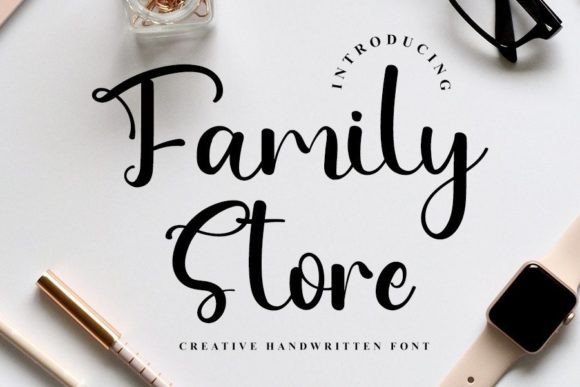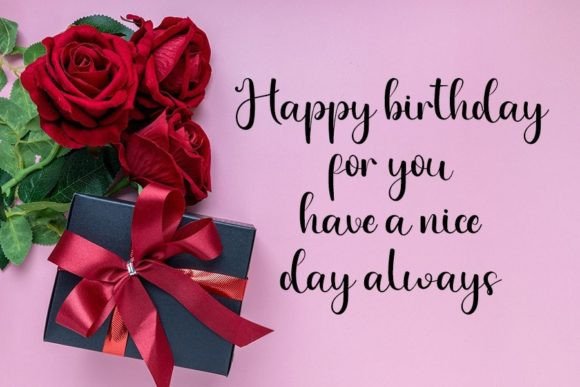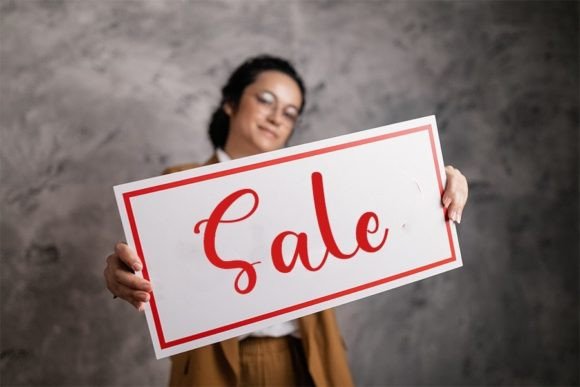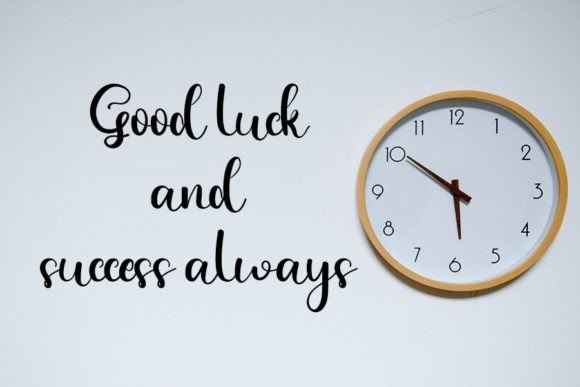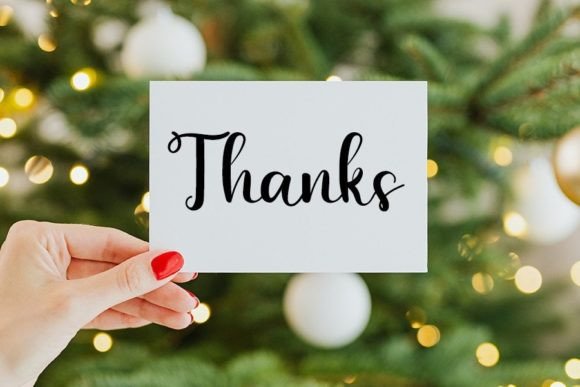
Family Store Font
About Family Store Font
“Family Store” is a font that embodies neatness and beauty with an elegant touch, making it an exceptional choice for a wide range of creative projects. Its distinct and timeless style sets it apart, capturing attention and adding a touch of sophistication to your designs. Whether you’re working on branding, invitations, stationery, or any other project, “Family Store” has the versatility to elevate your creations to new heights.
The neat and beautiful handwritten style of “Family Store” is perfect for creating a sense of warmth and personal connection in your designs. Its elegant touch adds a refined and polished look, making it suitable for various contexts where a sophisticated aesthetic is desired. Whether you’re designing for a family-owned business, a special event, or personal projects, this font enhances the visual appeal and creates a lasting impression.
In branding, “Family Store” brings a sense of authenticity and charm. Its neat and elegant characters make it ideal for businesses looking to convey a friendly and approachable image. Whether used in logos, business cards, or promotional materials, this font adds a touch of professionalism while maintaining a personal and inviting atmosphere. It creates a connection with customers, making the brand memorable and relatable.
For invitations and stationery, “Family Store” adds a touch of elegance and timelessness. Whether you’re designing wedding invitations, greeting cards, or letterheads, this font imparts a sense of sophistication and class. Its beautiful handwritten style creates a personalized and heartfelt tone, making invitations and stationery items more meaningful and special for recipients.
In digital media and social media posts, “Family Store” stands out with its distinct and elegant appearance. Whether used for quotes, announcements, or promotional graphics, this font adds a touch of sophistication to your social media presence. Its neat and beautiful handwritten design creates visually appealing content, ensuring that your messages resonate with your audience and leave a lasting impression.
Overall, “Family Store” is more than just a font; it’s an embodiment of elegance and timeless beauty. Its distinct and neat handwritten style makes it a versatile choice for a variety of projects, allowing you to create spectacular designs that captivate hearts and leave a lasting impact. By incorporating “Family Store” into your favorite projects, you can infuse them with a touch of sophistication and create visually stunning designs that stand the test of time.